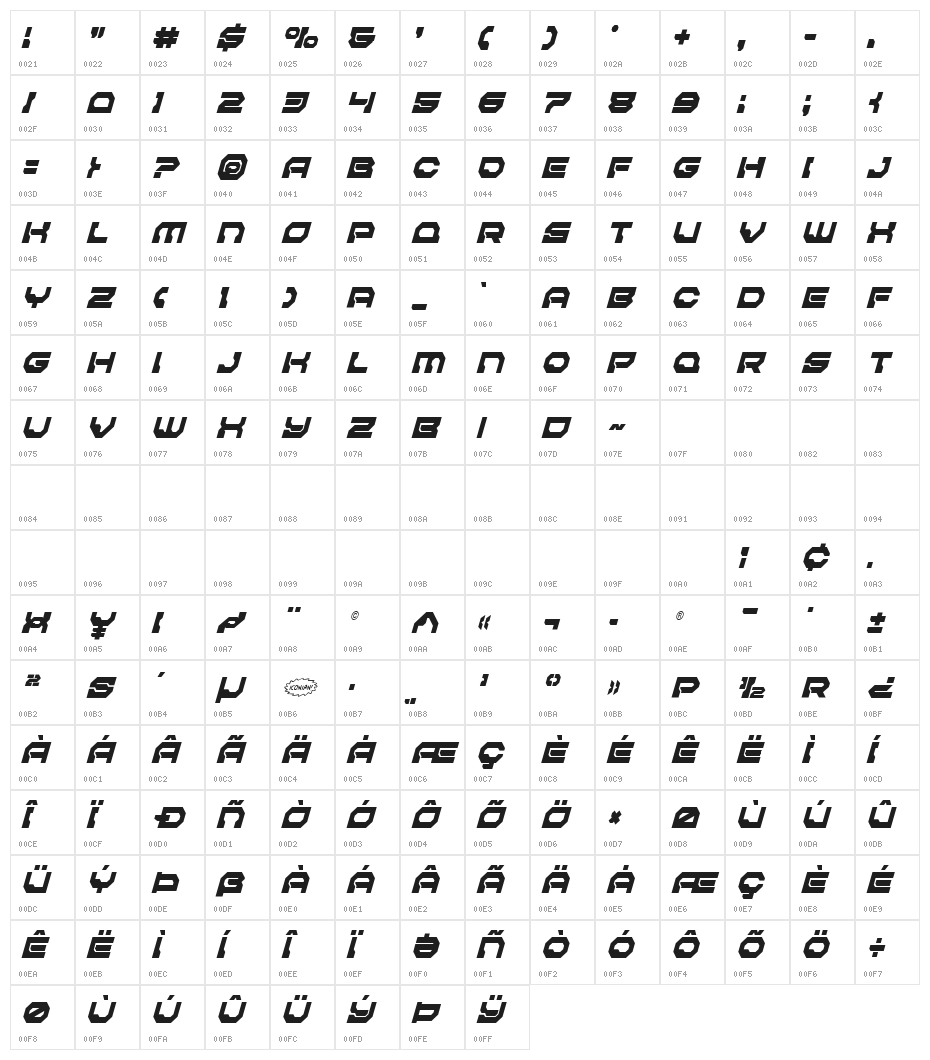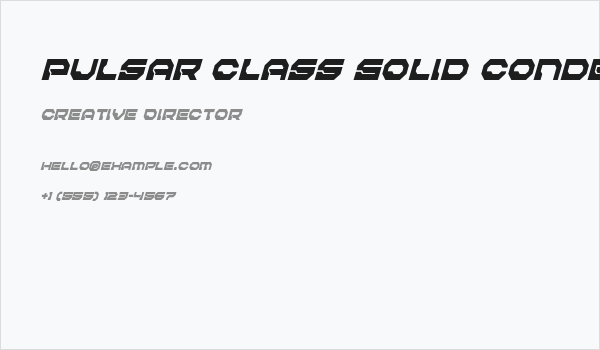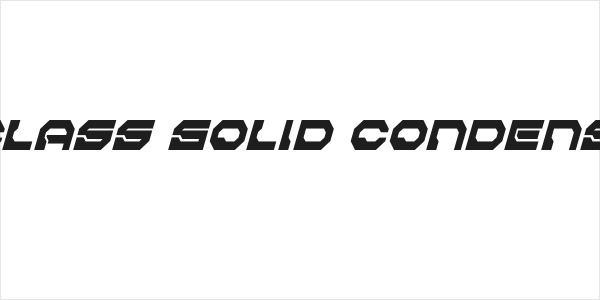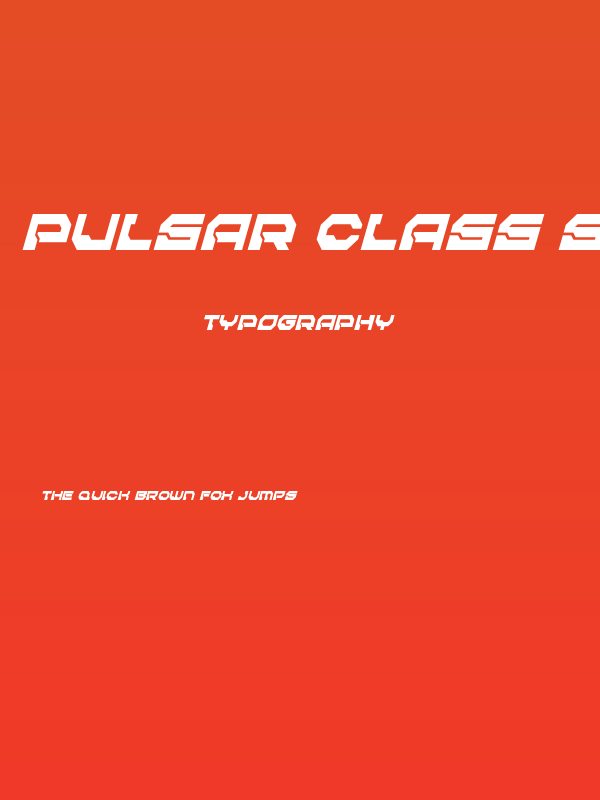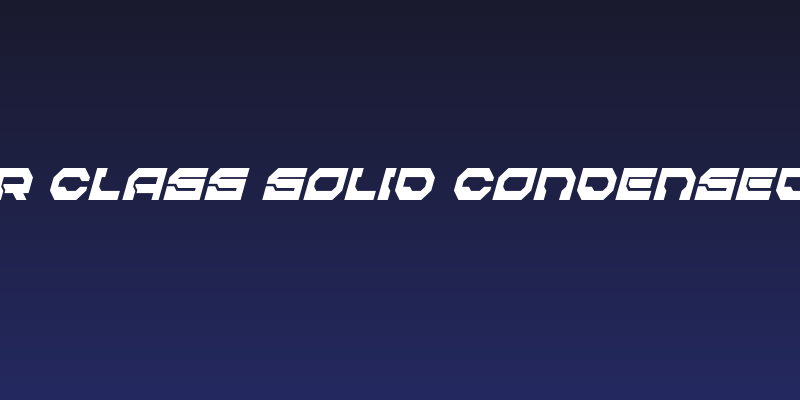
Pulsar Class Solid Condensed Italic Font
Pulsar Class Solid Condensed Italic Description
This font features a futuristic and angular design, characterized by its bold and condensed letterforms. The italic style adds a dynamic and forward-leaning appearance, enhancing its modern and edgy aesthetic. The characters are constructed with sharp, geometric shapes, giving it a distinctive and high-tech look. The uppercase and lowercase letters maintain a consistent style, while the numbers and special characters complement the overall design. This font's unique structure makes it suitable for projects that require a strong visual impact.
| Proposed Projects | Ideal for sci-fi themed posters, video game titles, technology branding, and futuristic event invitations. |